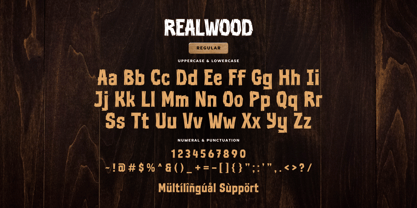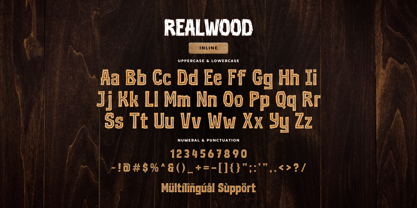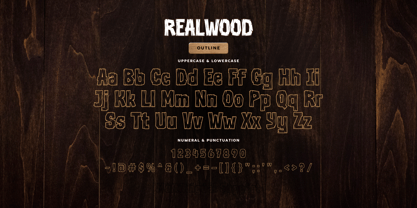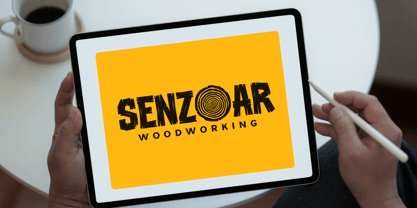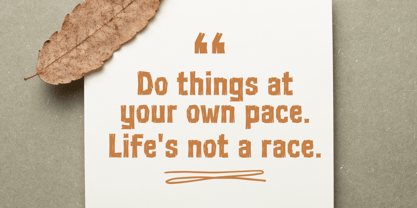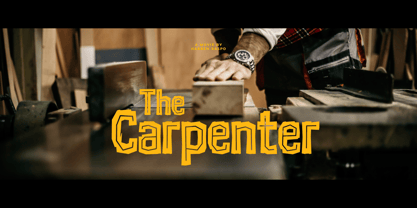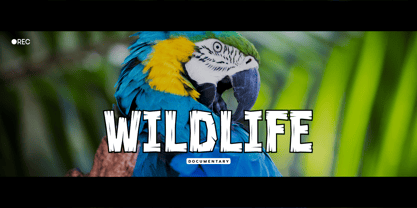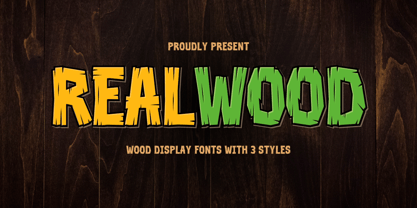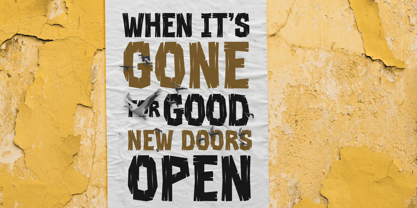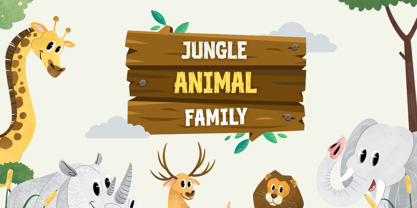
Realwood
by Sronstudio
The Realwood Font Family was designed by Muhamad Yusron Billah and published by Sronstudio. Realwood contains 3 styles and family package options. More about this family
Realwood is a bold and rustic wood display font that brings the warmth and texture of natural wood to your designs. With its rugged, handcrafted feel, this font is perfect for branding, signage, packaging, posters, and any project that needs a touch of organic charm. Realwood embodies the beauty of nature with its sturdy, textured letterforms, making your designs stand out with a strong and earthy appeal.
- Uppercase & lowercase characters
- Numerals & punctuation
- Multilingual support